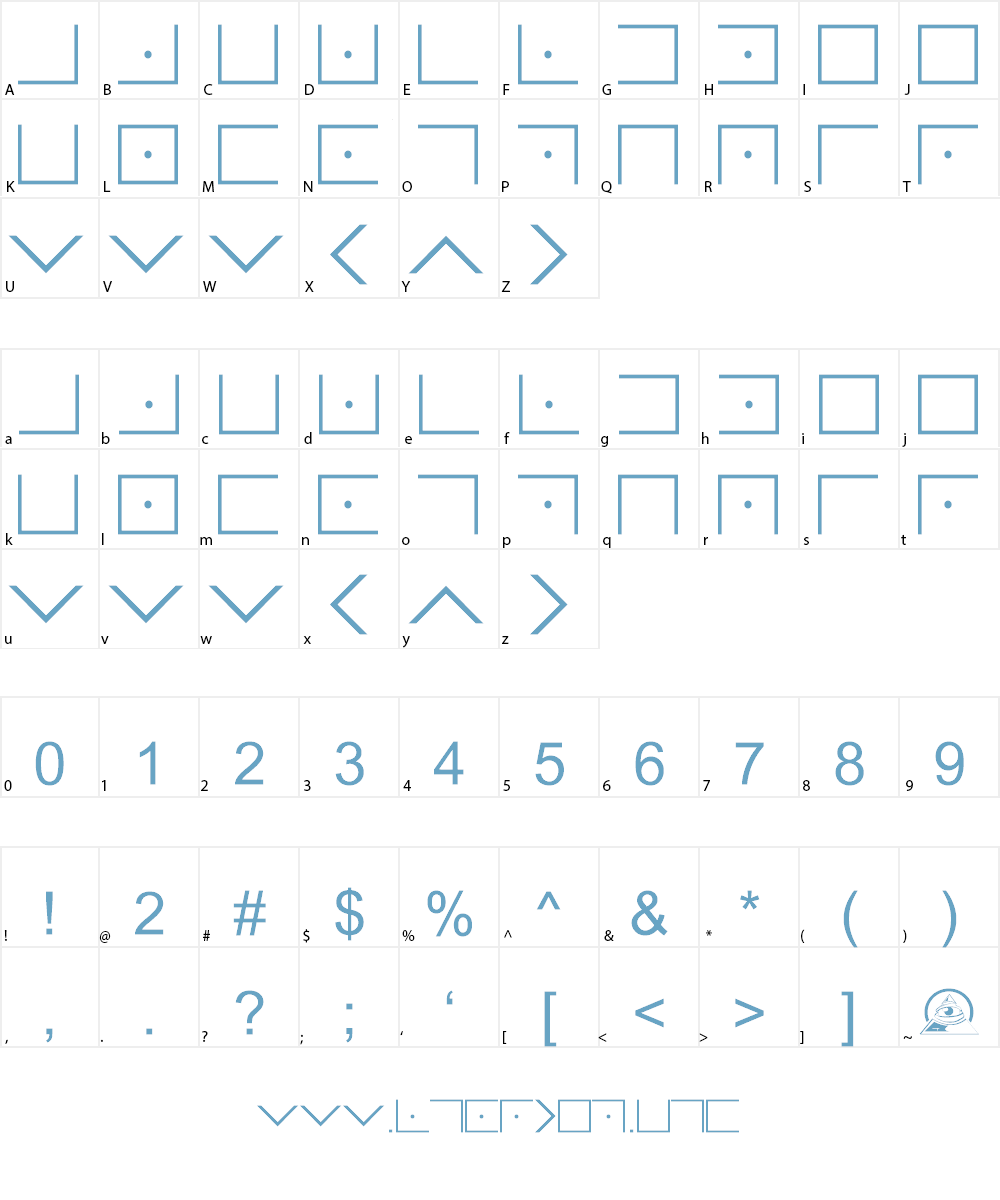
Font based on the Bavarian Illuminati Masonic Cipher from the Secret State Archives Prussian Cultural Center in Berlin and transcribed in The Secret School of Wisdom.